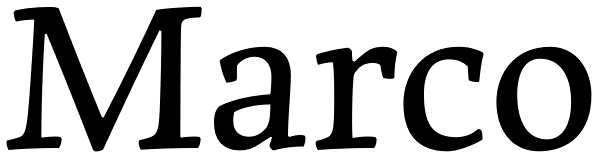
Marco
Marco is a lively text face, with an informal touch, inspired by 15th century Italian letter-forms with strong calligraphic traces and intended to be used primarily in continuous and intensive reading conditions. Marco is full of features required...